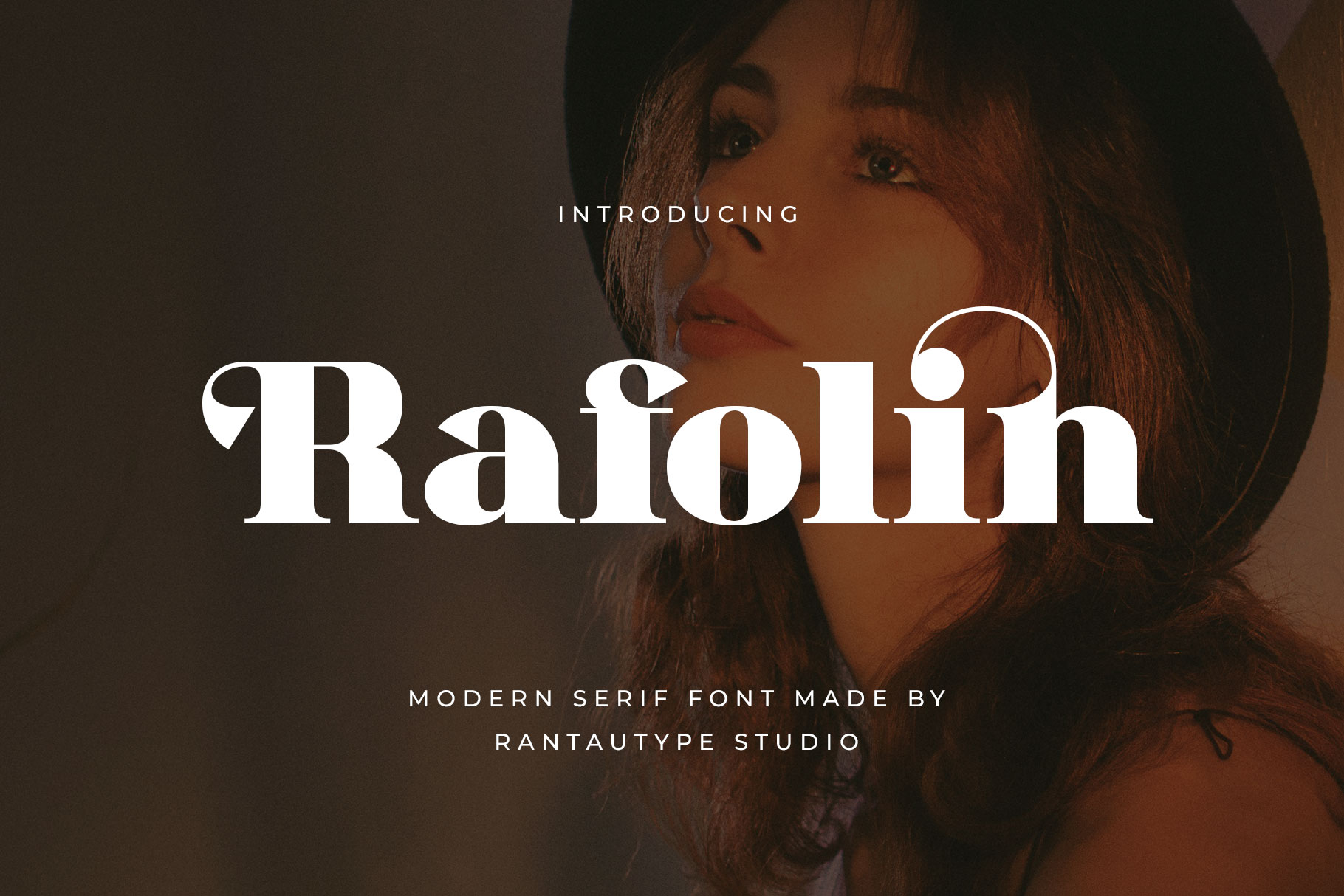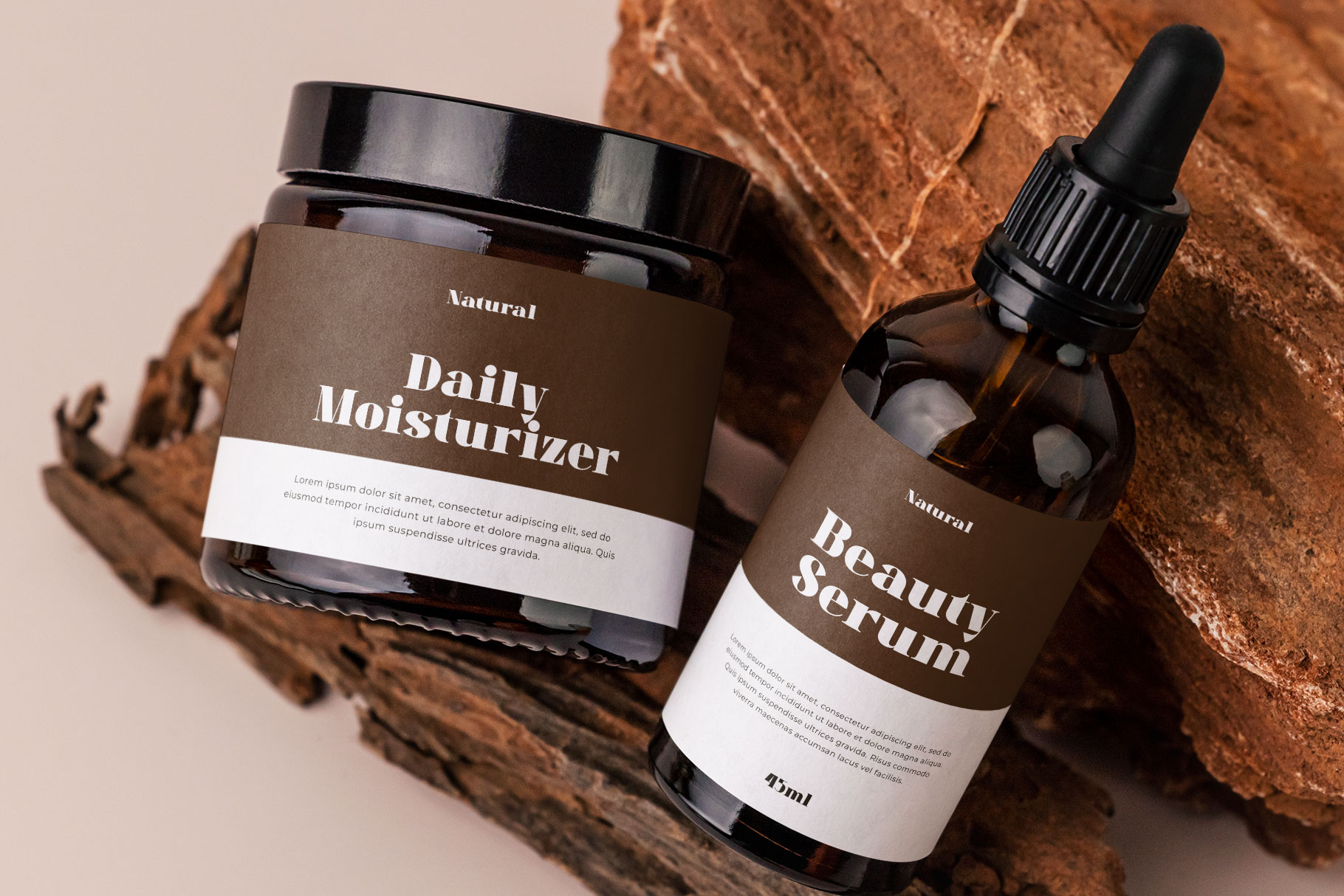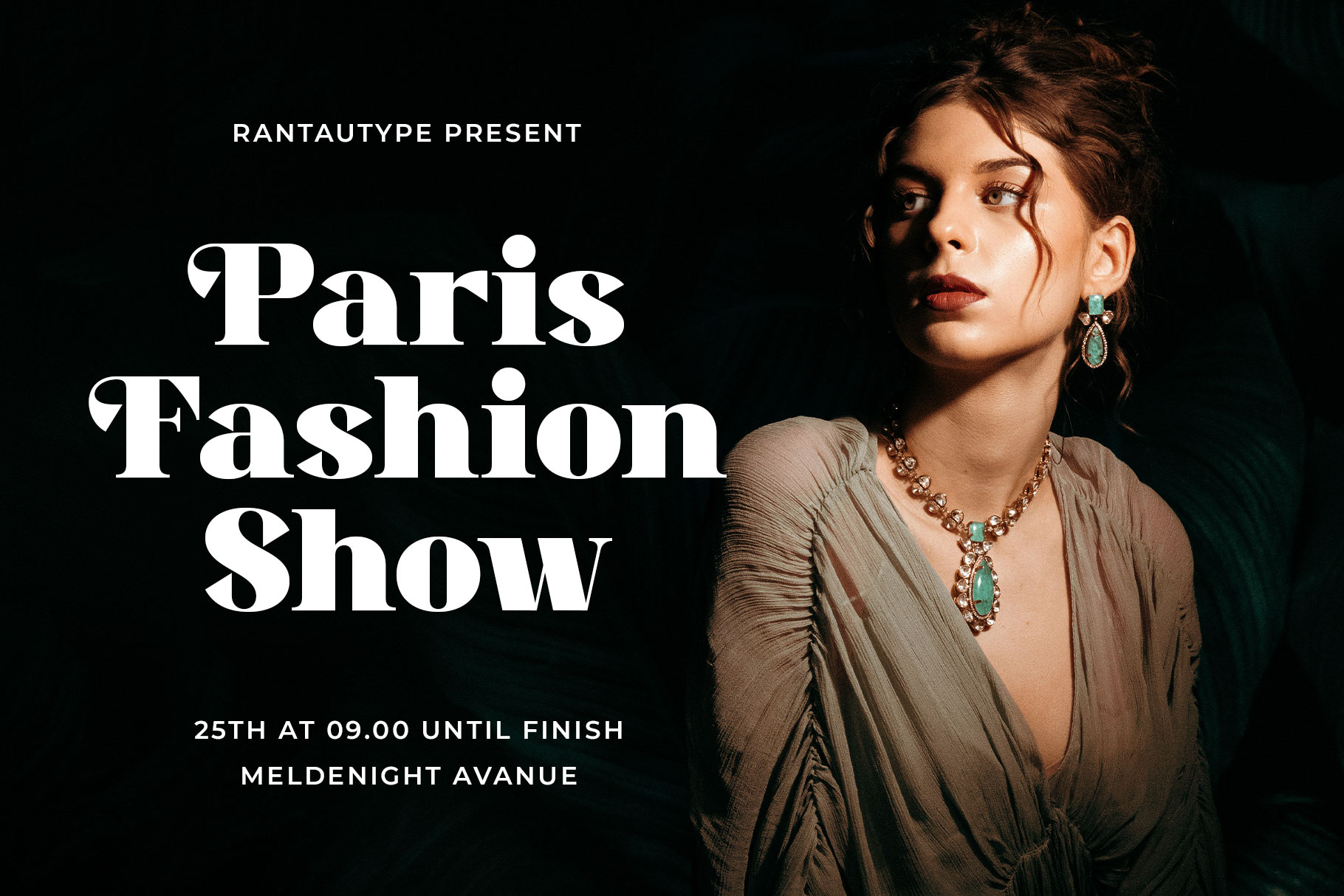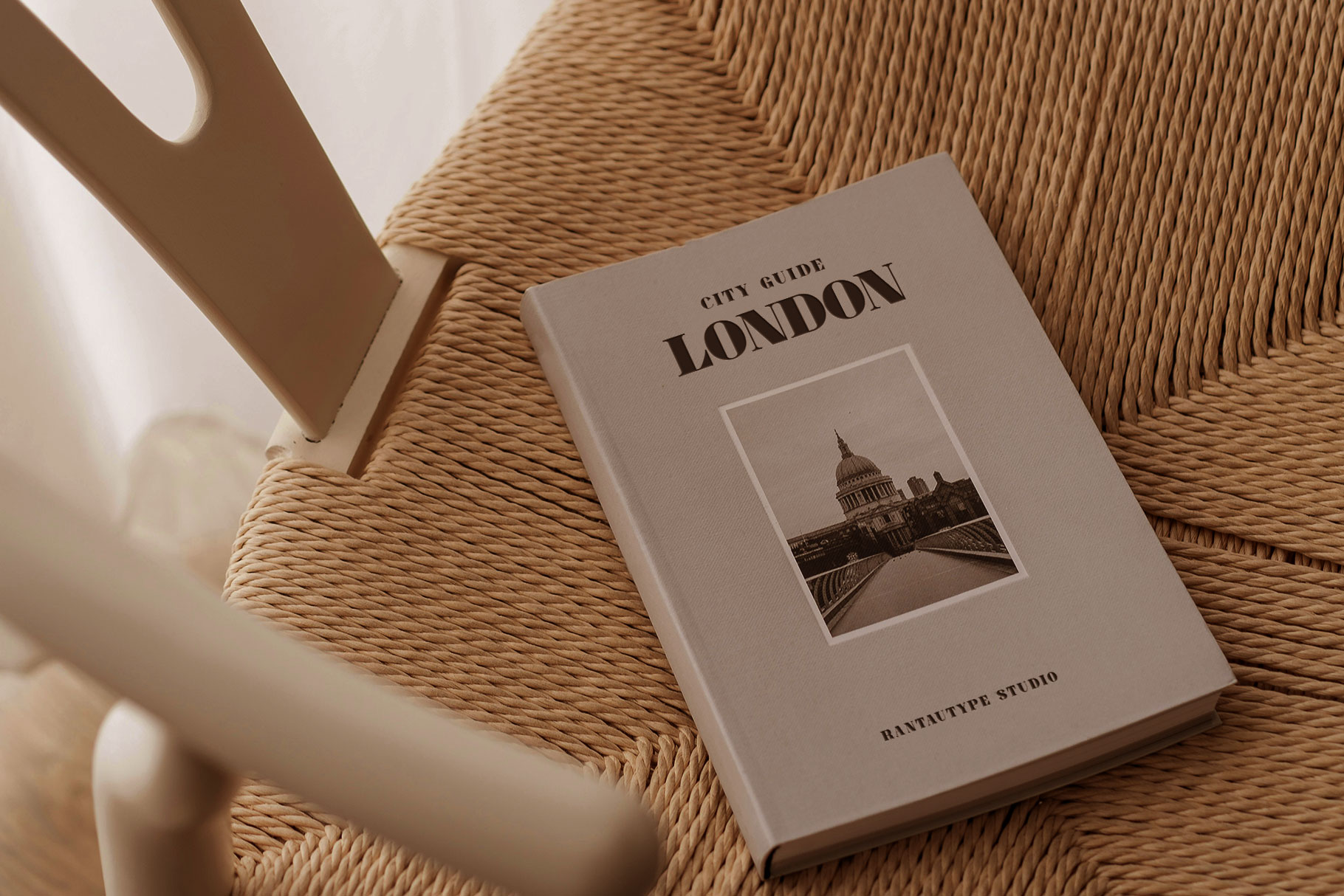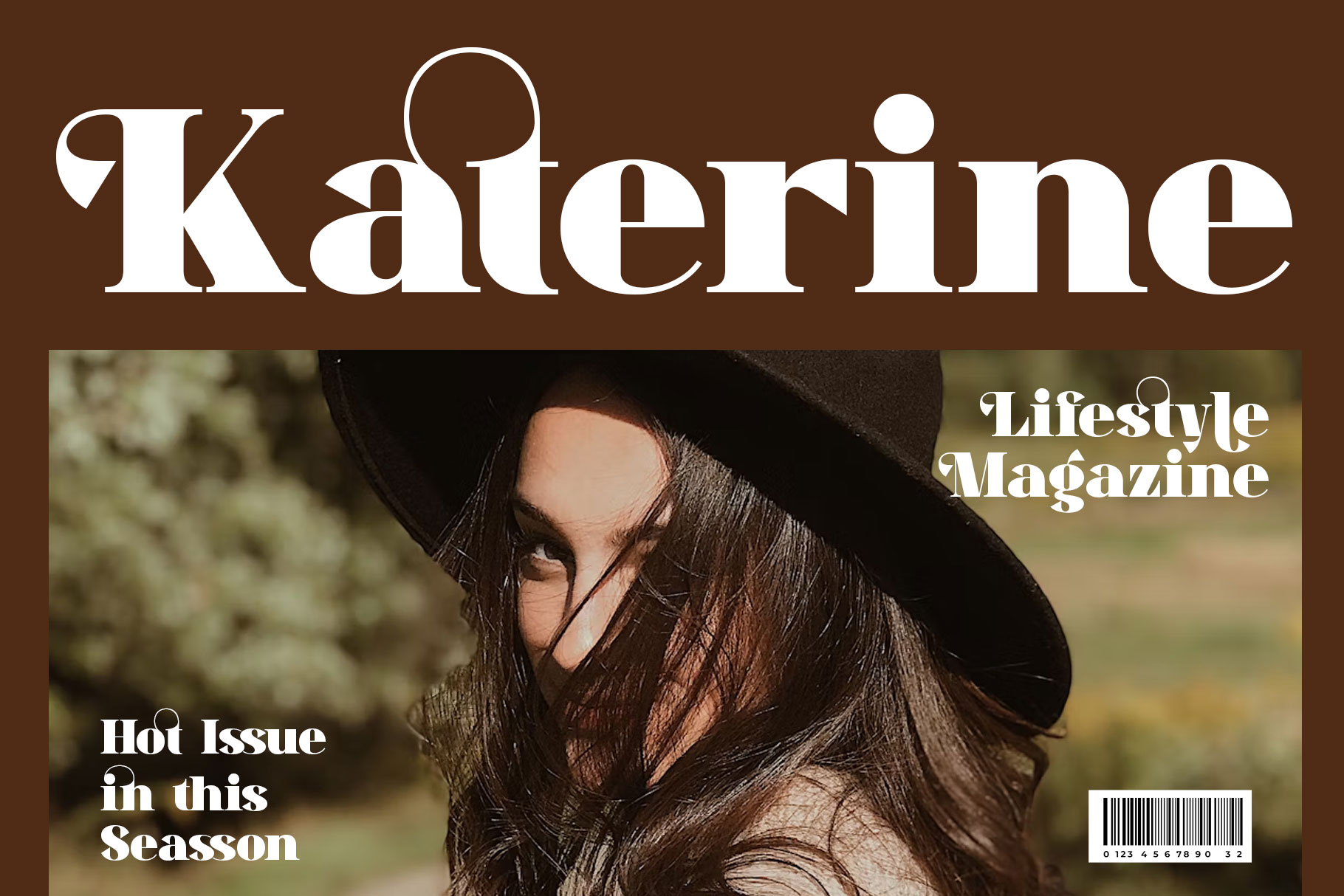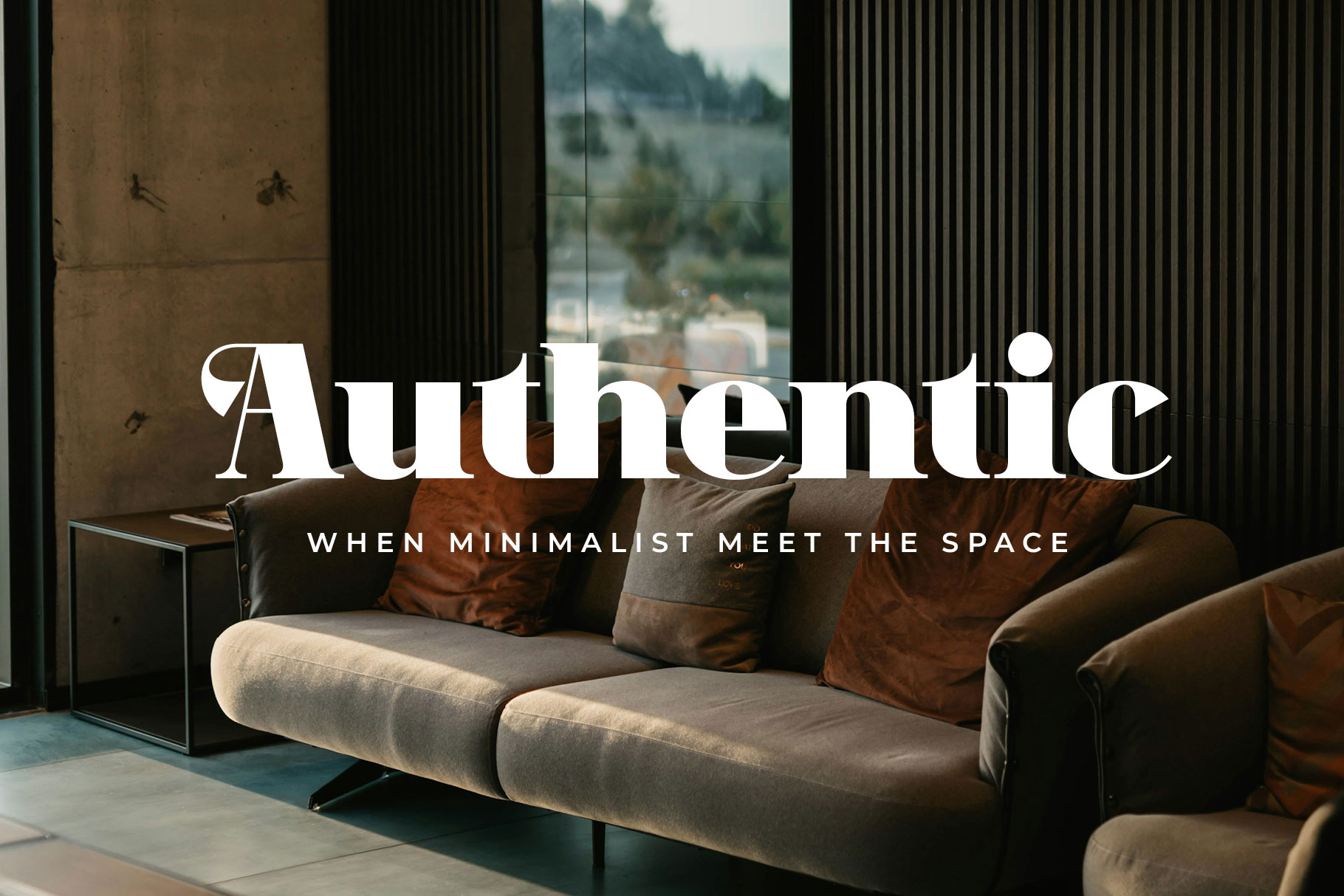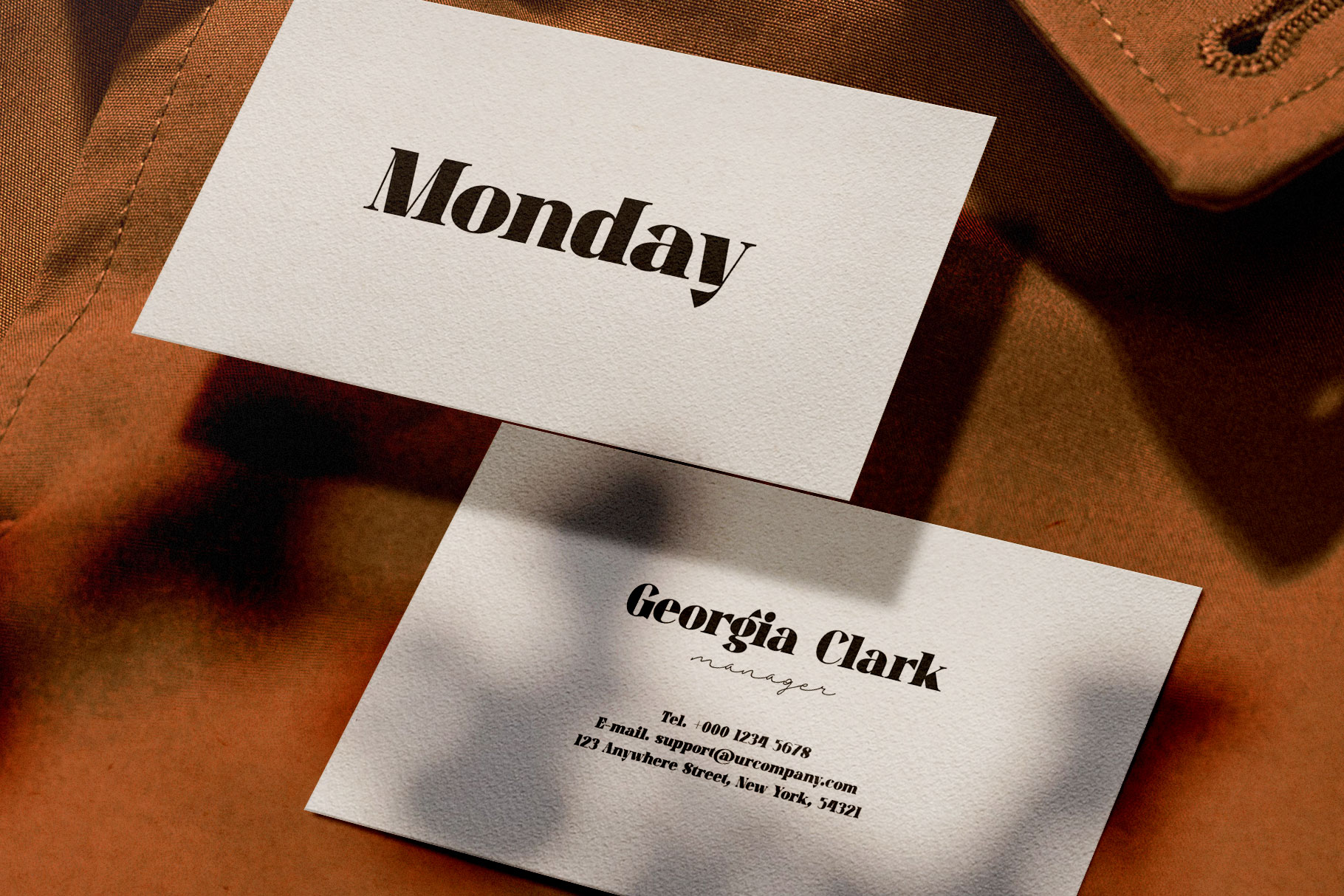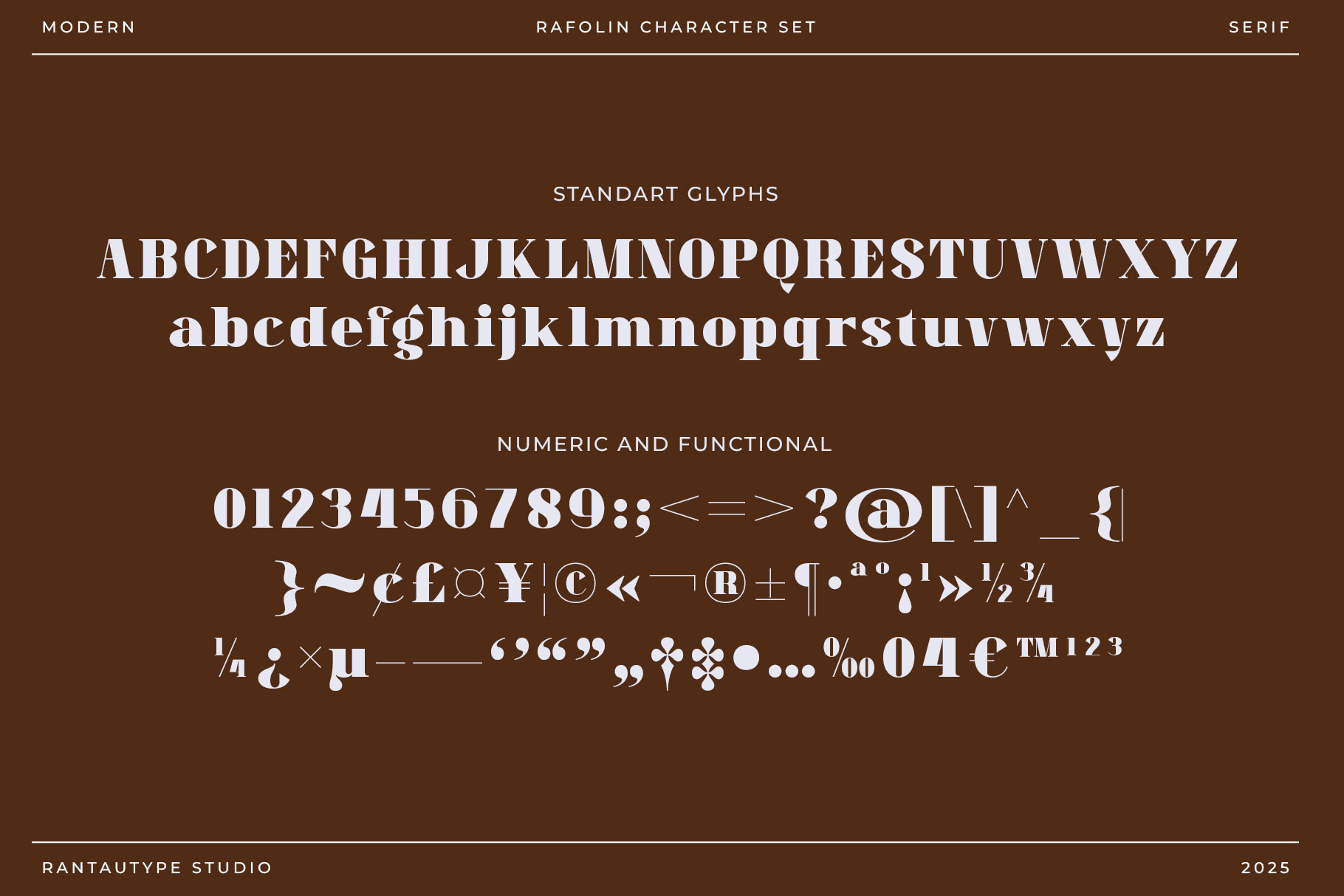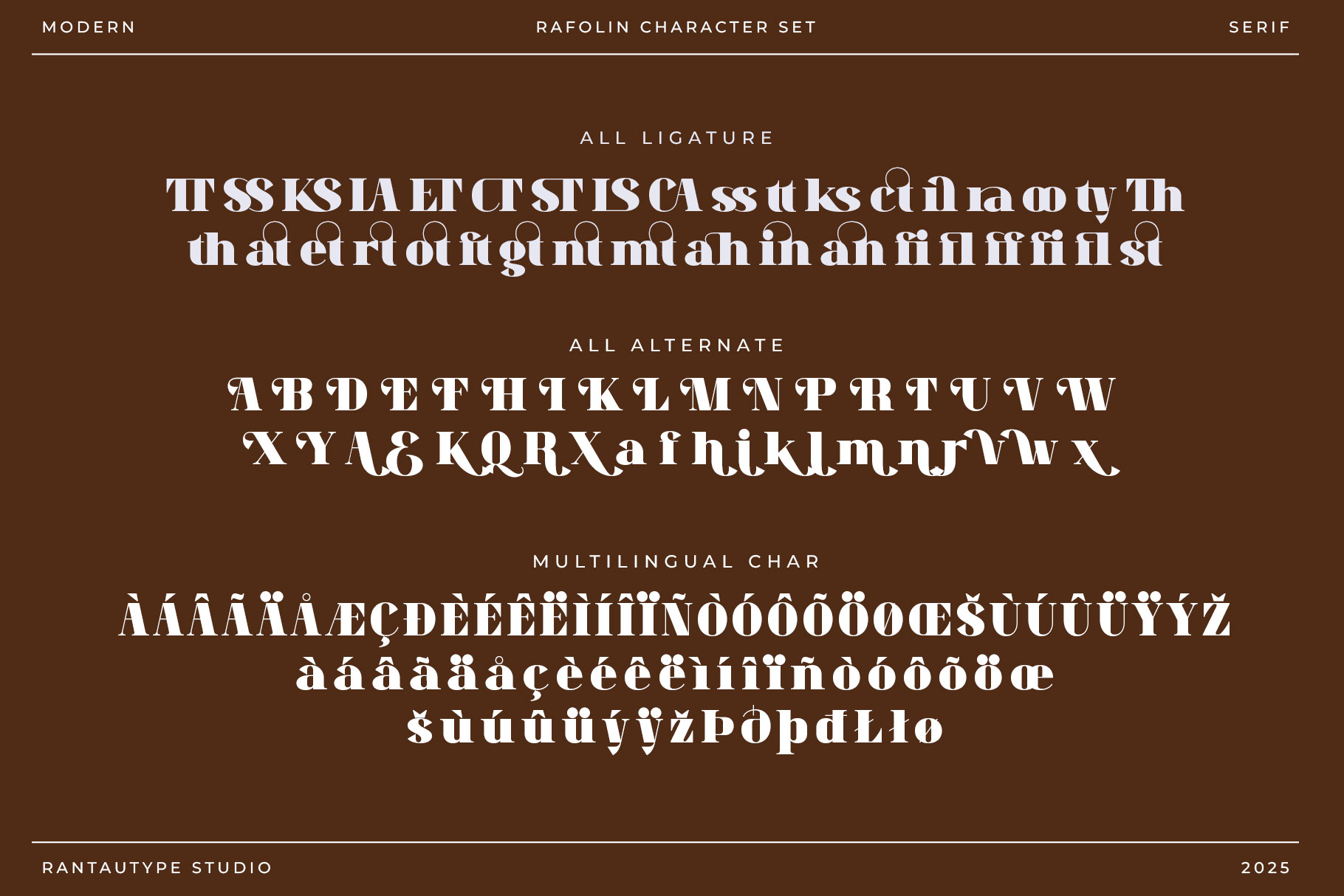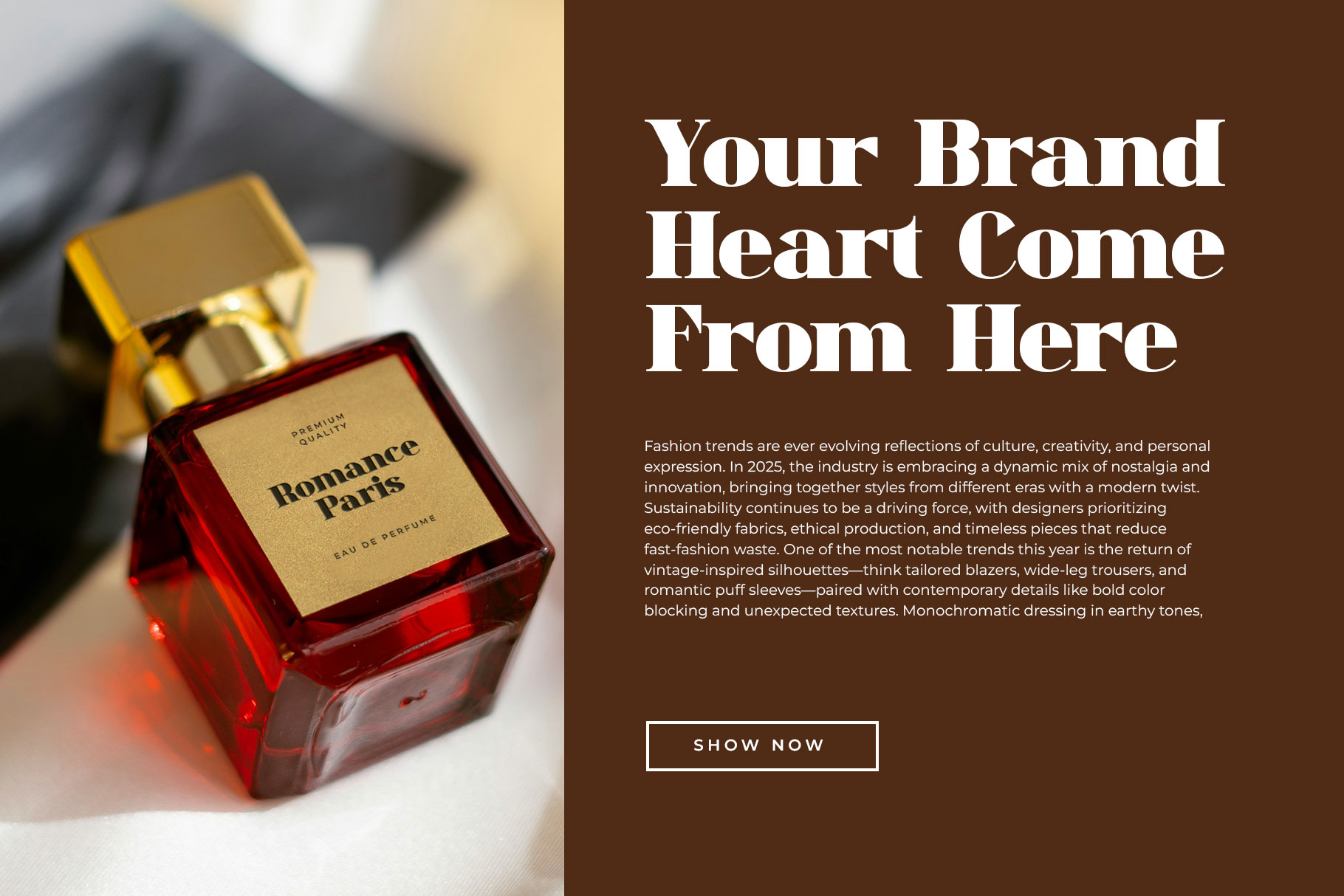
Rafolin Modern Serif Font
Rafolin modern serif font embrace grace and boldness. Rafolin is a perfectly choice for any creative endeavor, chic, lifestyle design such as logotype, advertisements, watermark on photography, stationery, branding project, display and magazine, invitation, corporate brand, product design, label, business project and many other project with retro touch.